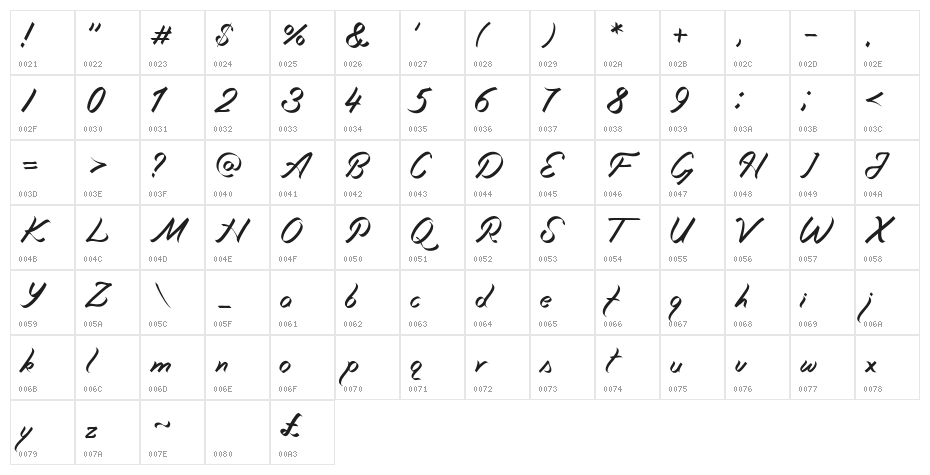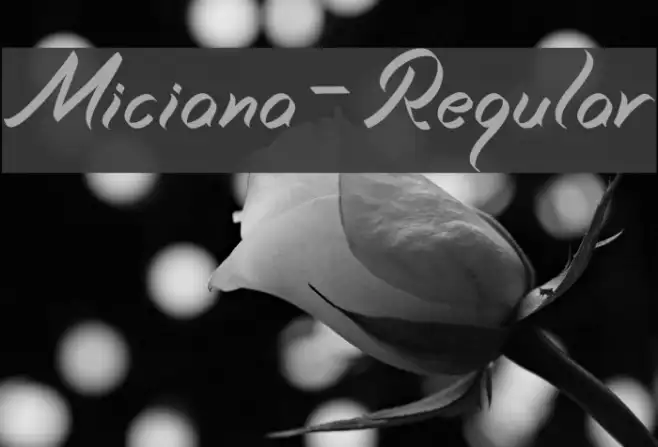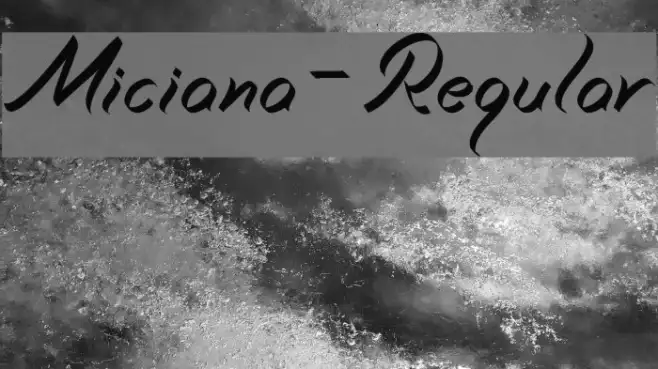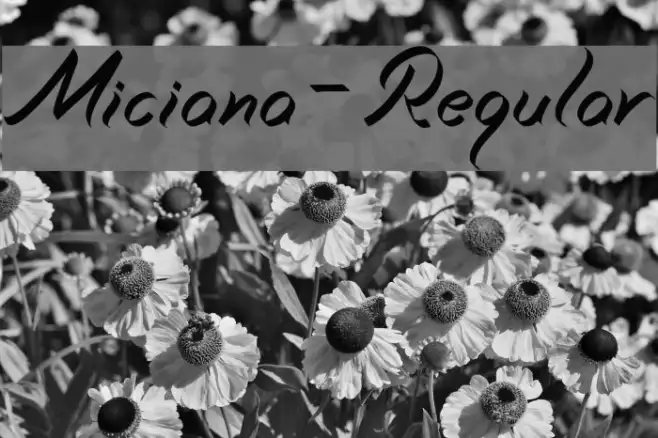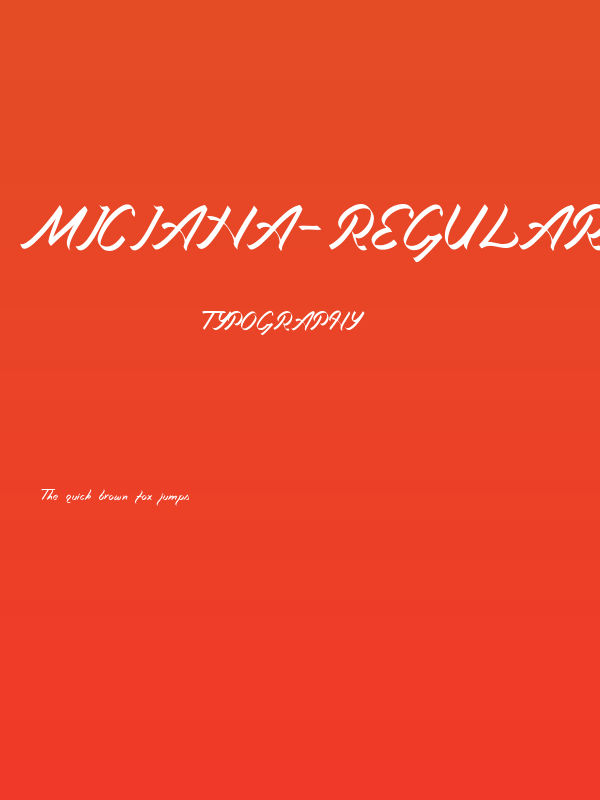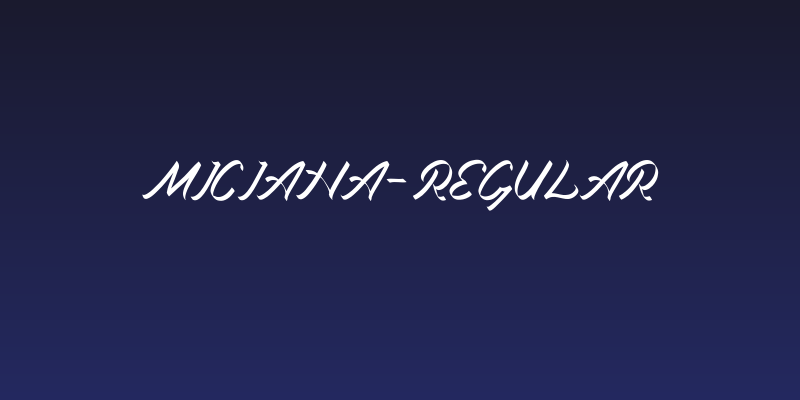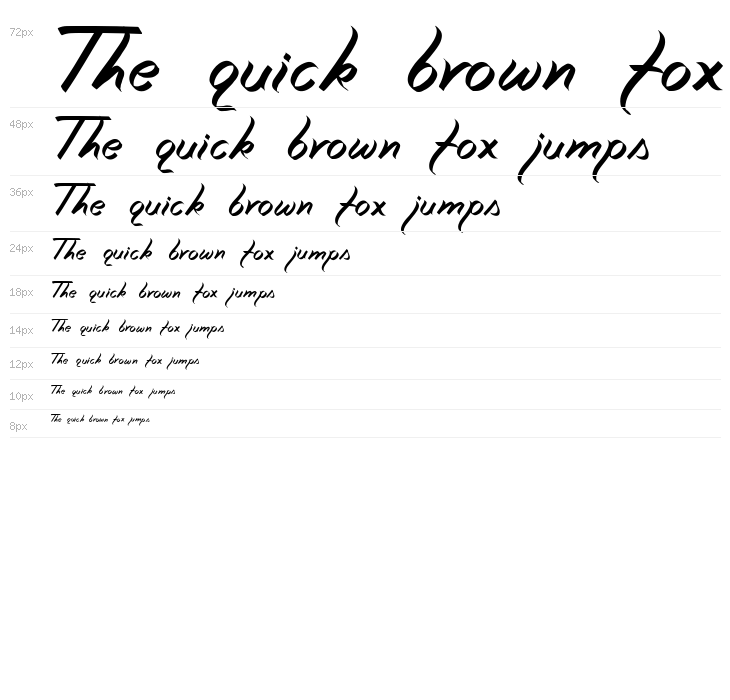
Miciana-Regular Font
Miciana-Regular Description
This font features a dynamic and flowing script style, characterized by its elegant and fluid strokes. The letters are interconnected, creating a sense of movement and continuity. The uppercase letters exhibit a dramatic flair with sweeping curves, while the lowercase letters maintain a consistent rhythm. The numerals are designed to complement the overall aesthetic, with a similar emphasis on curves and fluidity. Special characters are seamlessly integrated, maintaining the font's cohesive appearance. This font is ideal for projects that require a touch of sophistication and artistic expression.
| Overall Style | Elegant and Artistic |
| Use Case | Headlines, Invitations, Artistic projects |
| Proposed Projects | Ideal for wedding invitations, greeting cards, branding, and artistic projects. |